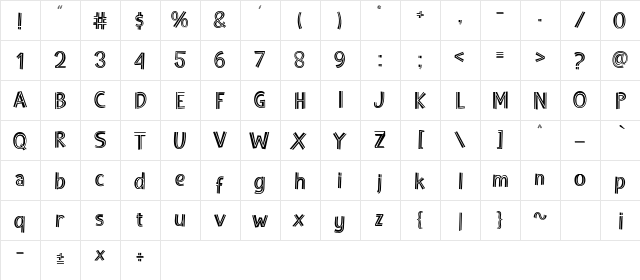
Hot Dog Regular
Design Context for Hot Dog Typeface
Hot Dog is a composed and adaptable typeface that performs quietly and consistently across a wide range of design contexts.